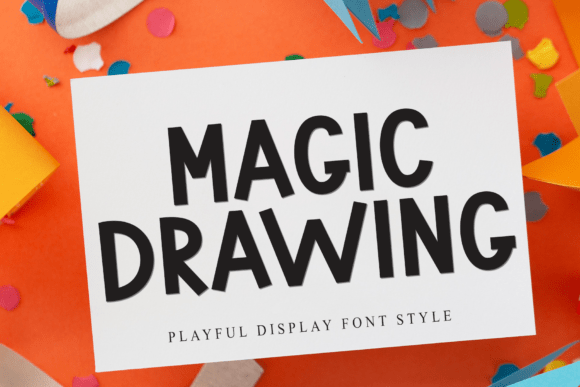
Magic Drawing Font: Elevate Your Designs with a Unique and Versatile Typeface
The Magic Drawing Font is a beautiful and eye-catching typeface that has been designed with a soft, unique touch. Its distinctive strokes give it a special character, making it a meaningful and versatile font for future use. With its various characters, this font is perfect for design projects, crafts, and other creative works. In this article, we will explore the features and benefits of the Magic Drawing Font, and how it can enhance your designs, making them appealing to many audiences across different artistic and creative fields.
What is Magic Drawing Font?
The Magic Drawing Font is a natural font style that has been designed to give your designs a unique and special touch. Its soft and distinctive strokes make it stand out from other fonts, and its versatility makes it suitable for a wide range of applications. Whether you are working on a design project, crafting a logo, or creating a digital artwork, this font is perfect for adding a personal touch to your work.
Key Features of Magic Drawing Font
- Unique and Distinctive Strokes: The Magic Drawing Font has been designed with a soft, unique touch that sets it apart from other fonts. Its distinctive strokes give it a special character, making it meaningful and versatile for future use.
- Variety of Characters: This font comes with a range of characters, making it perfect for design projects, crafts, and other creative works. With its various characters, you can add a personal touch to your designs and make them more appealing to your audience.
- Ideal for a Wide Range of Products: This natural font style is ideal for a wide range of products, including design projects, crafts, logos, digital artworks, and more. Its versatility makes it a great choice for designers, artists, and crafters who want to add a personal touch to their work.
Benefits of Using Magic Drawing Font
The Magic Drawing Font offers a range of benefits that make it a great choice for designers, artists, and crafters. Some of the benefits of using this font include:
- Enhance Your Designs: The Magic Drawing Font can enhance your designs, making them more appealing to your audience. Its unique and distinctive strokes add a personal touch to your work, making it stand out from other designs.
- Perfect for Creative Projects: This font is perfect for creative projects, including design projects, crafts, and digital artworks. Its variety of characters and versatility make it a great choice for artists, designers, and crafters who want to add a personal touch to their work.
- Time-Saving: This font is a time-saving solution for designers, artists, and crafters who want to add a personal touch to their work. With its range of characters and versatility, you can quickly and easily create unique and eye-catching designs.
Tips for Using Magic Drawing Font
Here are some tips for using the Magic Drawing Font:
- Experiment with Different Sizes and Colors: The Magic Drawing Font comes in different sizes and colors. Experiment with different sizes and colors to find the one that works best for your design.
- Combine with Other Fonts: You can combine the Magic Drawing Font with other fonts to create a unique and eye-catching design. Experiment with different font combinations to find the one that works best for your project.
- Use for Headings and Titles: The Magic Drawing Font is perfect for headings and titles. Use it to add a personal touch to your design and make it more appealing to your audience.
The Magic Drawing Font is a beautiful and eye-catching typeface that has been designed with a soft, unique touch. Its distinctive strokes give it a special character, making it meaningful and versatile for future use. With its range of characters and compatibility with various applications, this font is perfect for design projects, crafts, and other creative works. By following the tips and guidelines outlined in this article, you can use the Magic Drawing Font to enhance your designs and make them more appealing to your audience.